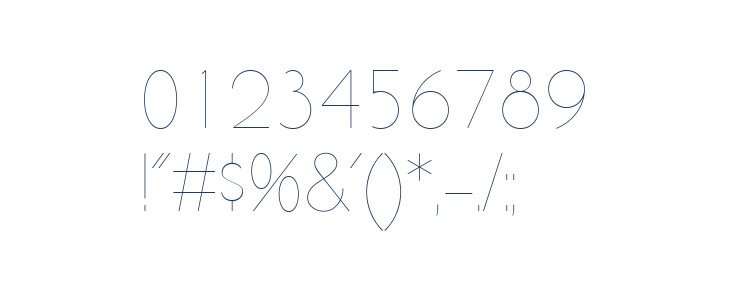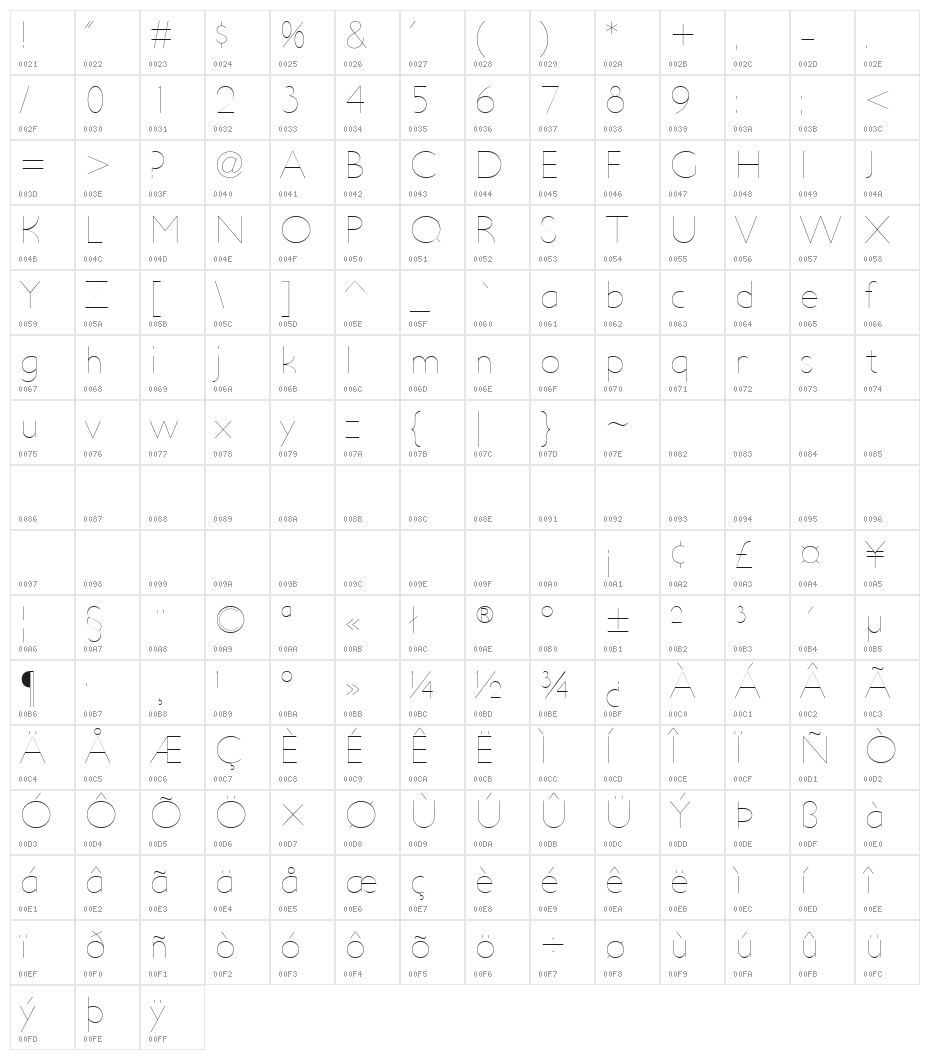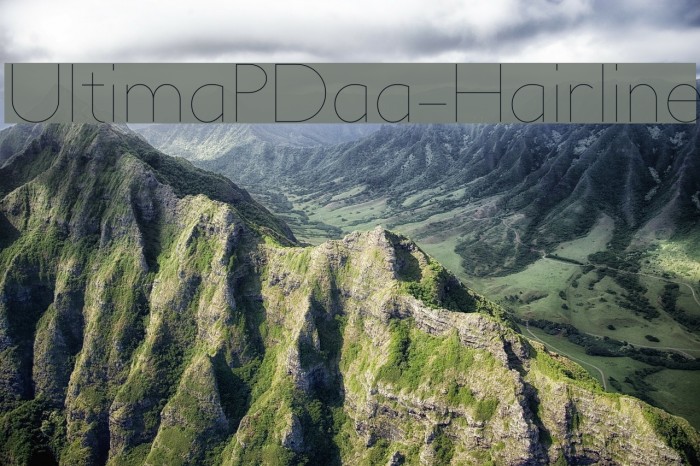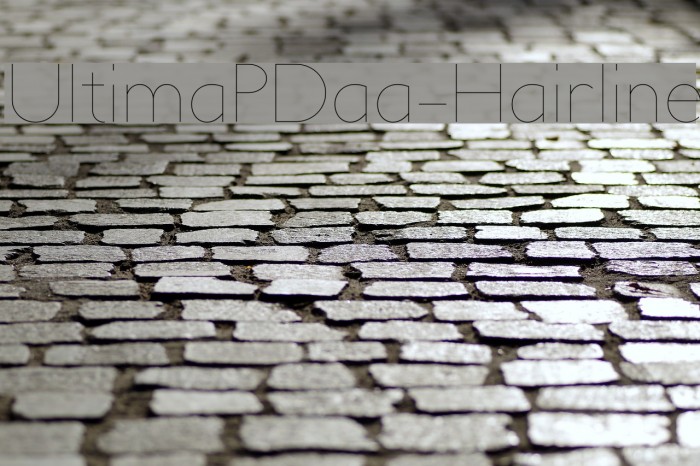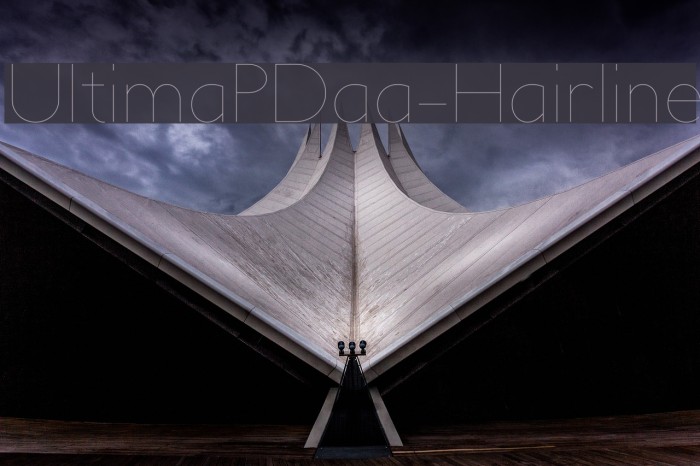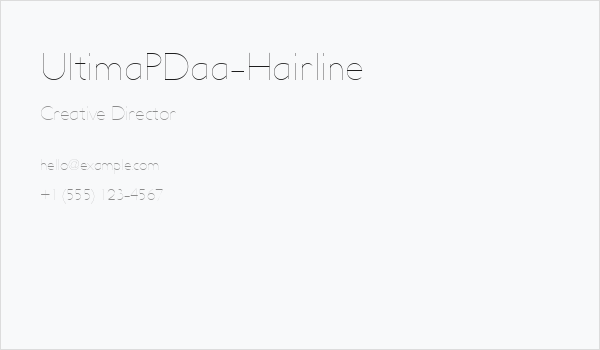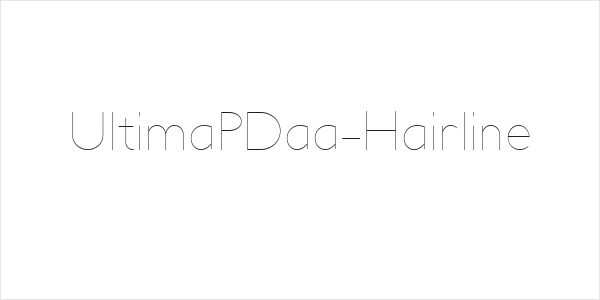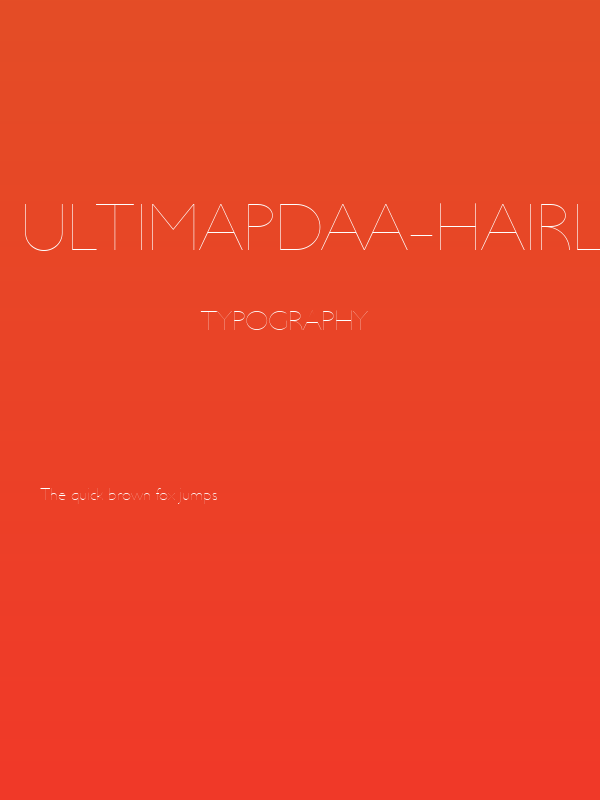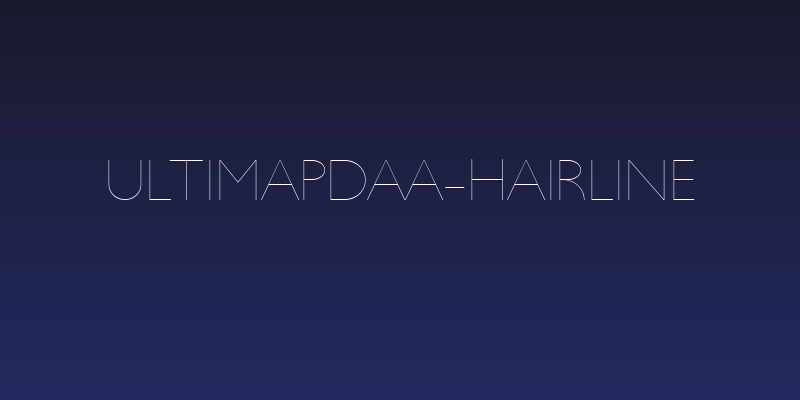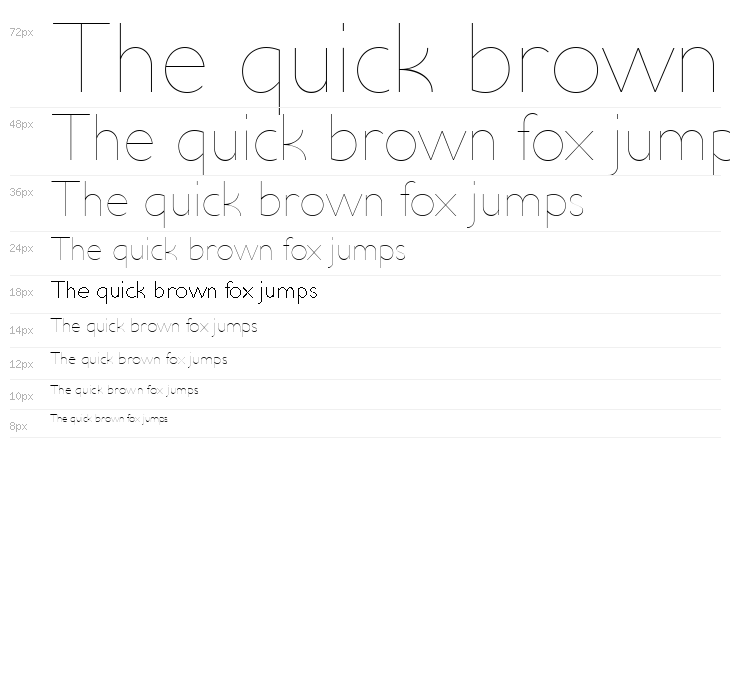
UltimaPDaa-Hairline Font
UltimaPDaa-Hairline Description
This font is characterized by its ultra-thin, hairline strokes, giving it a very light and airy appearance. The geometric shapes and clean lines create a modern and minimalist aesthetic. Each character is crafted with precision, maintaining a consistent stroke width throughout. The uppercase letters are tall and elegant, while the lowercase letters are slightly more rounded, adding a touch of softness. The numerals and special characters follow the same thin and sleek design, making them blend seamlessly with the alphabet. This font's simplicity and elegance make it suitable for contemporary design projects.
| Proposed Projects | Ideal for minimalist branding, modern websites, elegant invitations, and high-end product packaging. |